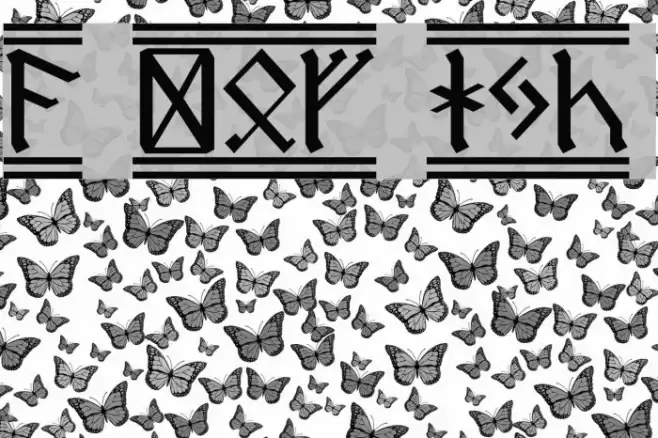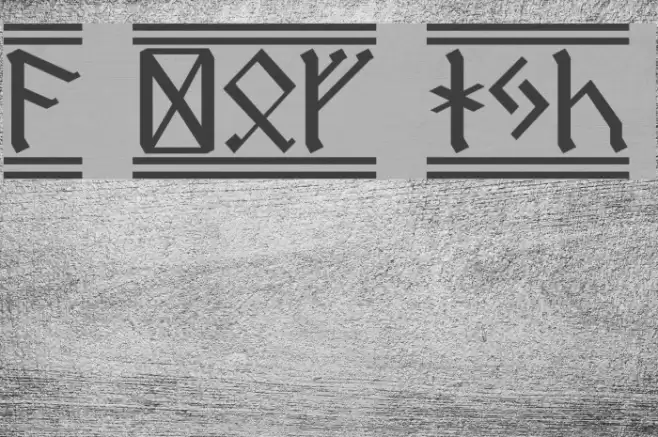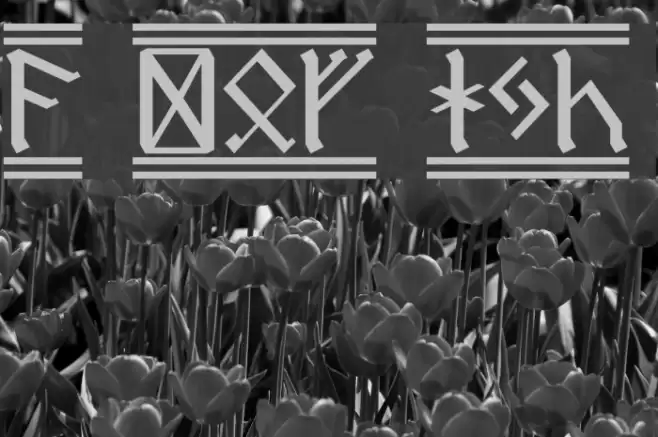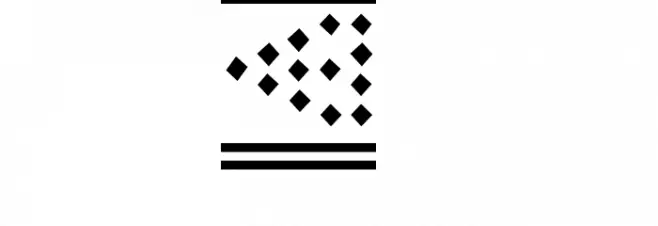
Dwarf Runes 2 Font
Dwarf Runes 2 Description
This font is inspired by ancient runic alphabets, featuring angular and geometric shapes that evoke a sense of mystery and antiquity. The characters are composed of straight lines and sharp angles, creating a bold and striking appearance. The font is highly decorative, with each letter resembling a unique symbol or rune. It is designed to capture the essence of ancient scripts, making it ideal for projects that require a historical or fantasy theme. The overall style is both intricate and legible, with a consistent weight and spacing that ensures readability while maintaining its decorative appeal.
A decorative font inspired by ancient runes, featuring angular and geometric shapes from Dingbats fonts.
- Proposed Projects: Ideal for fantasy-themed projects, game design, book covers, and historical recreations.
- Use Case: Logos, Headlines, Themed Events